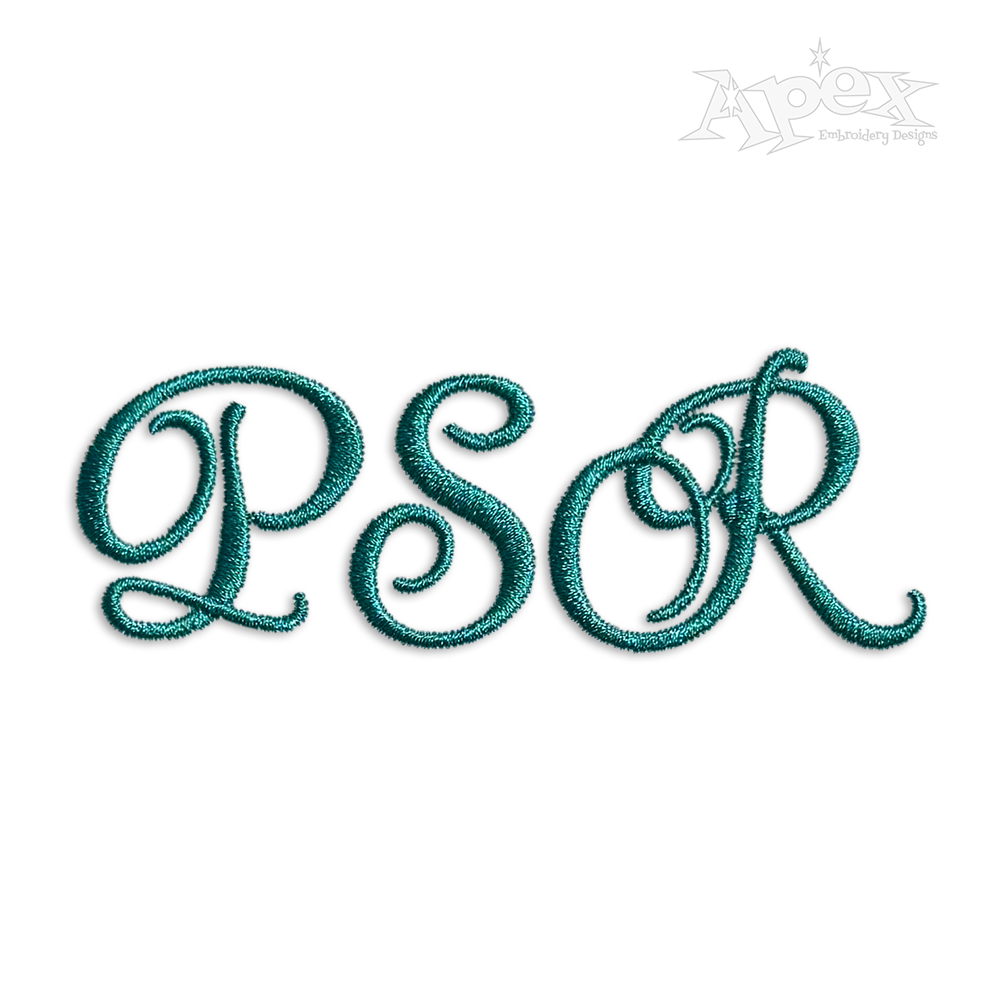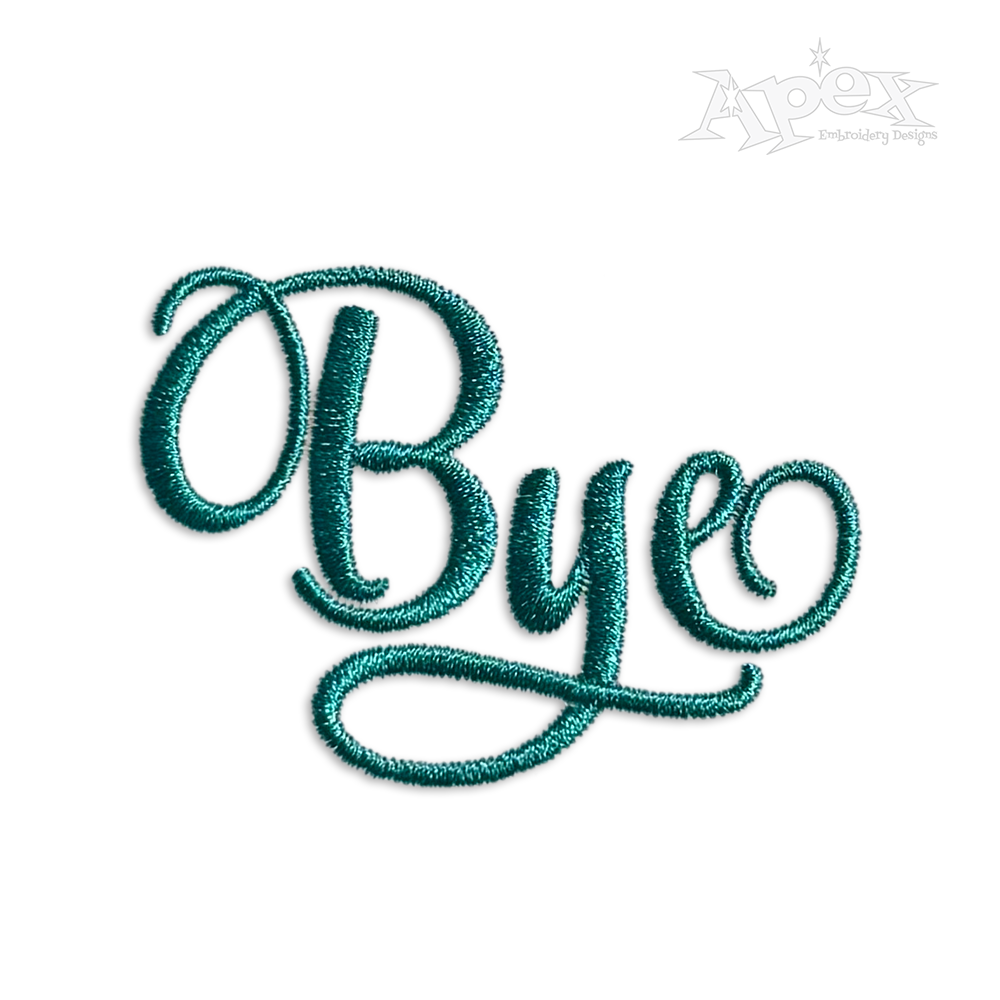
Vida Curlz Embroidery Font
True to its name, Vida Curlz breathes vibrant life and spirited movement into the art of custom monogramming. Inspired by the joyous flair of hand-drawn calligraphy and the graceful swirls of ornate scrollwork, this alphabet was digitized to capture sheer exuberance while retaining the disciplined balance of luxury embroidery. Every loop, curl, and flourish has been carefully drawn to glide effortlessly under the needle, creating rich satin columns that catch the light and transform plain textiles into cheerful, bespoke heirlooms full of personality and charm.
Project Ideas for Vida Curlz
The playful, buoyant energy of Vida Curlz makes it a versatile favorite across modern stitching studios. Elevate your creations with these inspired applications:
- Linen Cocktail Napkins: Stitch single-initial monograms in bright, jewel-toned threads to spark conversation at garden parties and festive gatherings.
- Heirloom Nursery Keepsakes: Personalize soft minky blankets, baby rompers, and knit beanies with charming names that feel both timeless and cheerful.
- Bespoke Resort Wear: Embellish the backs of breezy linen cover-ups or sun hats for a whimsical, sun-drenched holiday aesthetic.
- Personalized Canvas Totes: Create bold 2.5-inch family names or whimsical phrases on sturdy market bags for everyday luxury.
- Bridal & Bridesmaid Robes: Add lighthearted script initials to silky prep robes for a delightful touch in wedding morning photographs.
Because Vida Curlz features spirited flourishes and asymmetric curl accents, intentional hooping and placement will showcase its beauty best:
- Corner Diagonal: Angle single-letter monograms 45 degrees into the corner of dinner napkins, table runners, or fine handkerchiefs, set 1.5 to 2 inches in from the hem.
- Center Chest & Pockets: Align the 1.5-inch size squarely across the left chest of sweatshirts, denim jackets, or children's pinafores for a vibrant focal point.
- Cuff & Hem Bands: Position the petite 0.75-inch letterforms parallel to sleeve hems or pajama cuffs for an unexpected glimpse of bespoke craftsmanship.
- Pillow & Tote Centering: For throw pillows and zip pouches, hoop the 2.5-inch glyphs precisely on center to let the dancing curls balance naturally against the surrounding negative space.
Vida Curlz Craft & Letterform Details
What sets Vida Curlz apart is its refined satin architecture. Whimsical fonts often run the risk of becoming knotty or bulky where loops intersect, but our master digitizing process resolves this through calculated stitch angles and layered entry points. Each curl unfurls from a secure base into a smooth, swelling satin column that gently tapers at the terminal tips, preventing needle deflection and thread bunching.
Beneath the surface, foundational underlay stitching anchors the weave of your textile, providing a smooth, stable bed that prevents satin stitches from sinking into waffle weaves, knits, or linen slubs. The result is pure, tactile dimension: letters that sit proud, curves that stay crisp through every laundry cycle, and thread sheens that ripple brilliantly with life.